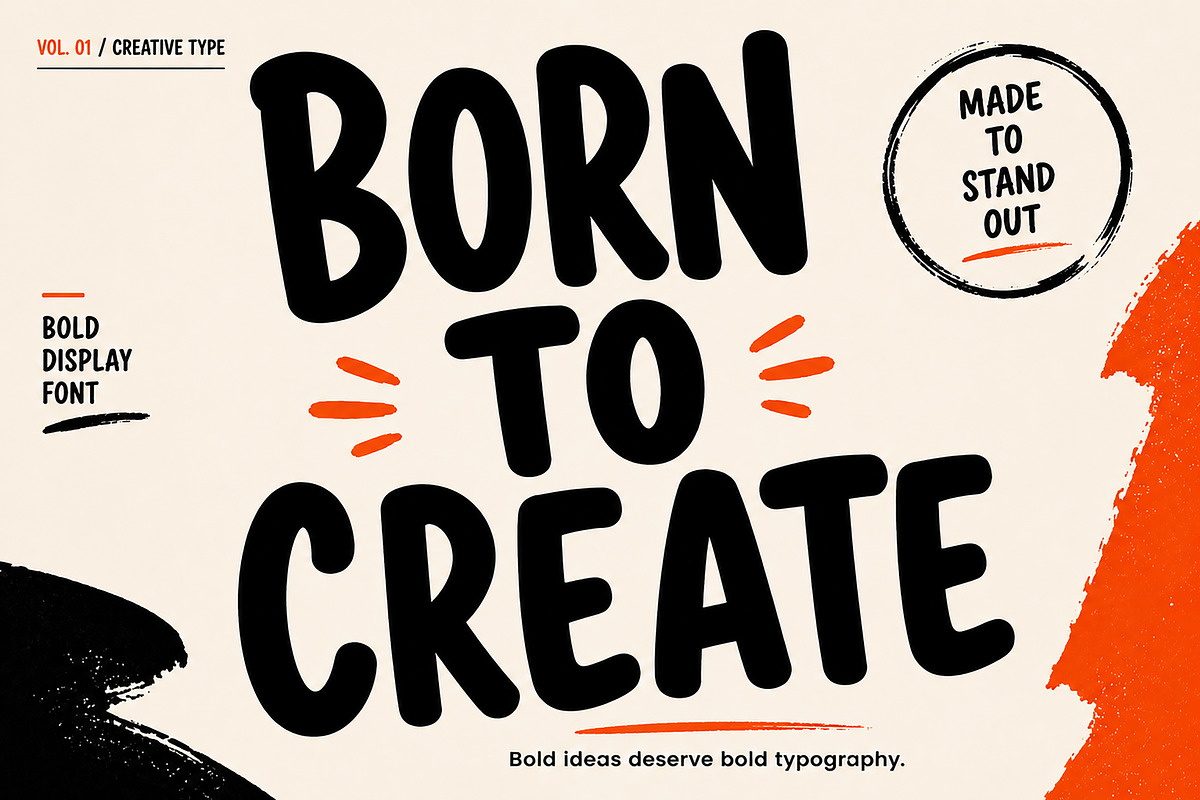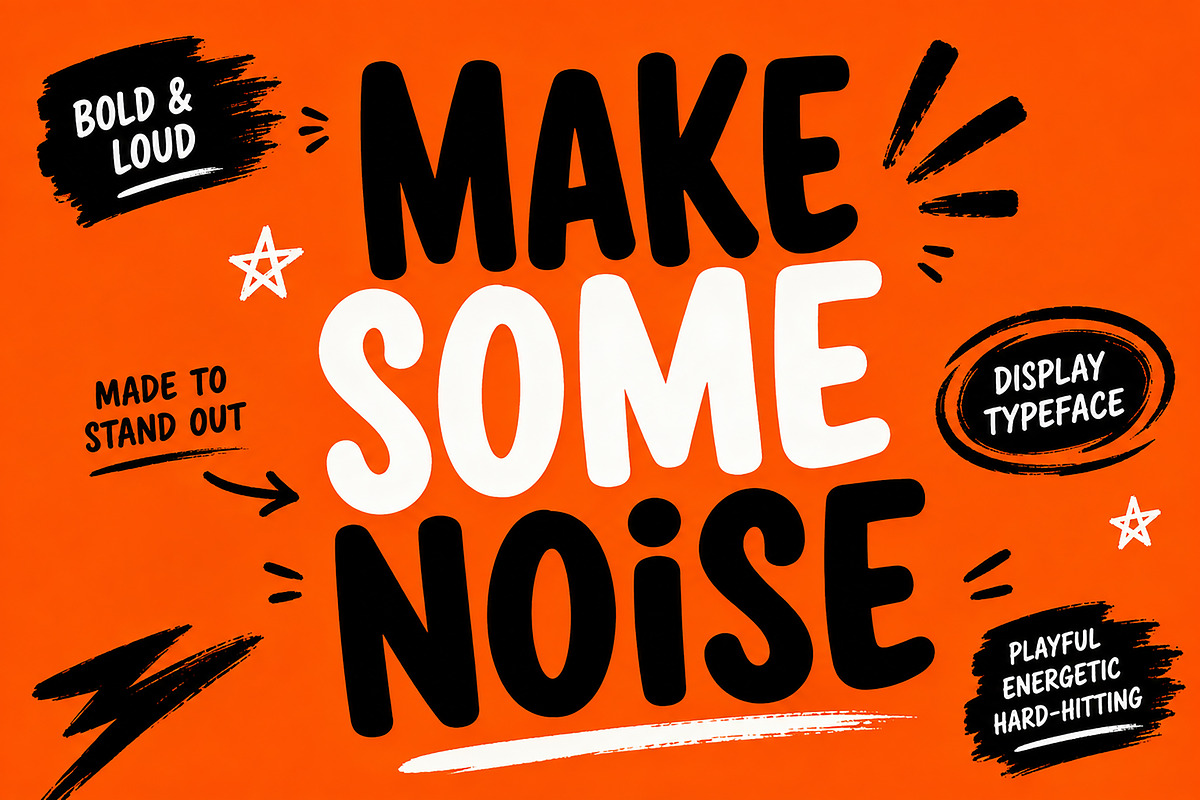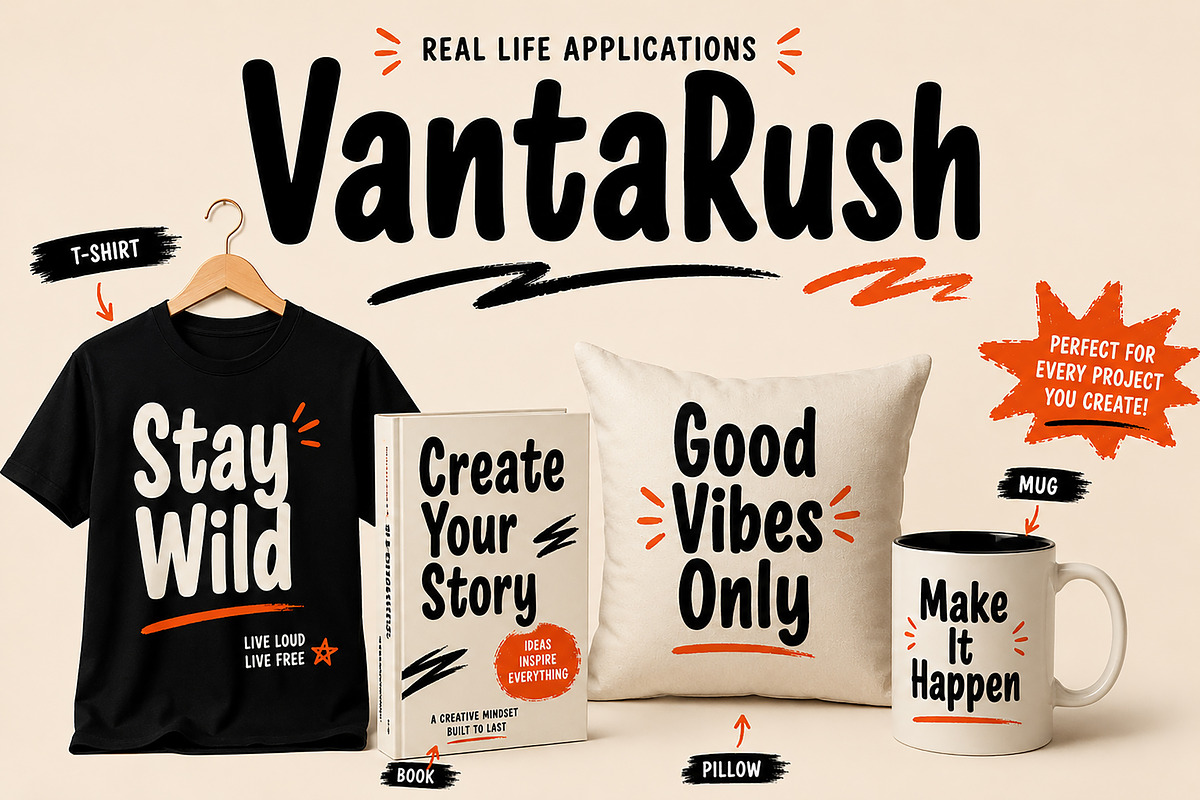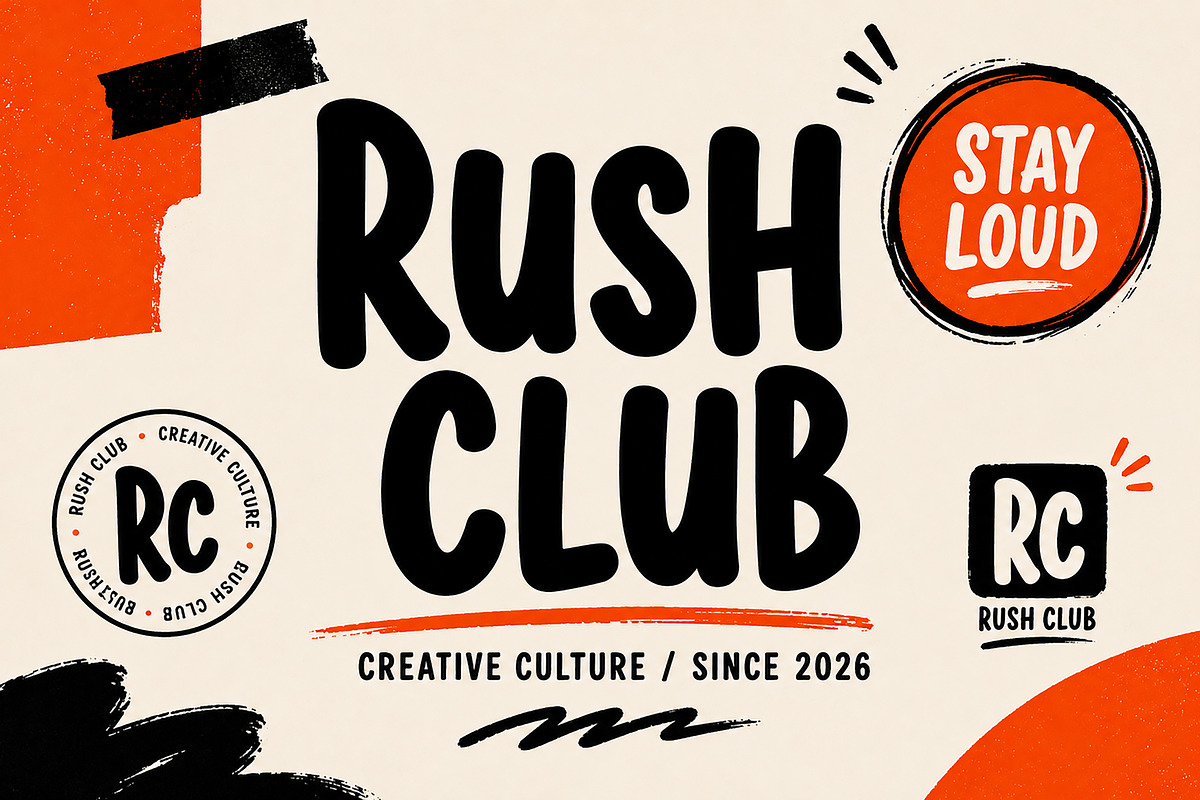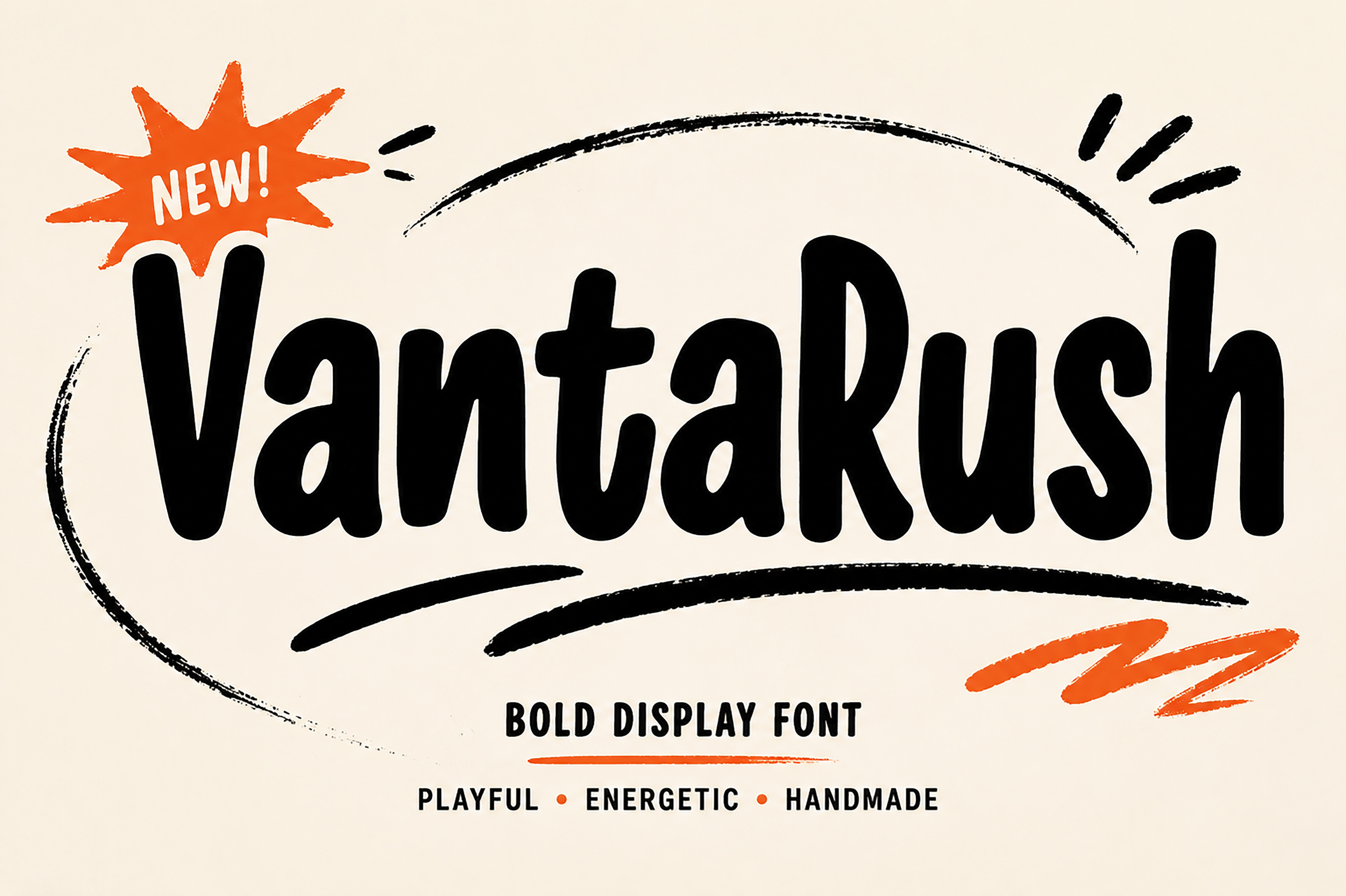
VantaRush – Bold & Playful Font
# VantaRush – Bold & Playful Display Font
Meet VantaRush, a bold and playful display font designed to bring energy, personality, and a handcrafted feel to your creative projects.
With its tall, chunky letterforms, organic curves, and expressive handmade character, VantaRush is made for designs that need to stand out and get noticed. Its fun yet confident personality makes it a great choice for eye-catching headlines, branding, posters, merchandise, packaging, and other display-focused designs.
Whether you're creating a bold brand identity, an energetic T-shirt design, a playful product package, or attention-grabbing social media graphics, VantaRush gives your typography a distinctive and memorable voice.
## Perfect For
* Logos & Branding
* Posters & Flyers
* Bold Headlines
* T-Shirt & Apparel Designs
* Product Packaging
* Book & Magazine Covers
* Social Media Graphics
* Advertising Designs
* Stickers & Labels
* Merchandise
* Creative Editorial Designs
* Display Typography
## Font Features
* Bold & Playful Display Style
* Handmade-Inspired Personality
* Strong and Eye-Catching Letterforms
* Fun & Energetic Visual Character
* Great for Large Display Typography
* Versatile for Branding and Creative Projects
## Make Your Designs Stand Out
VantaRush is created for designers who want typography with personality. From bold branding and expressive posters to apparel and packaging, this font helps transform simple words into strong visual statements.
Be bold. Stay playful. Create with VantaRush.